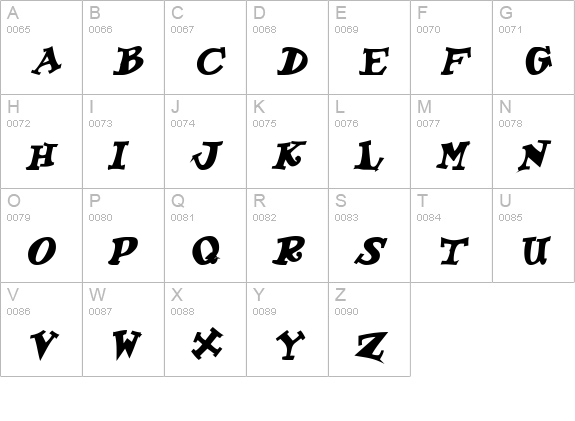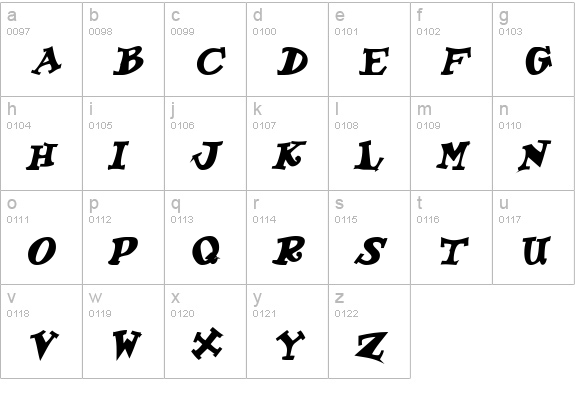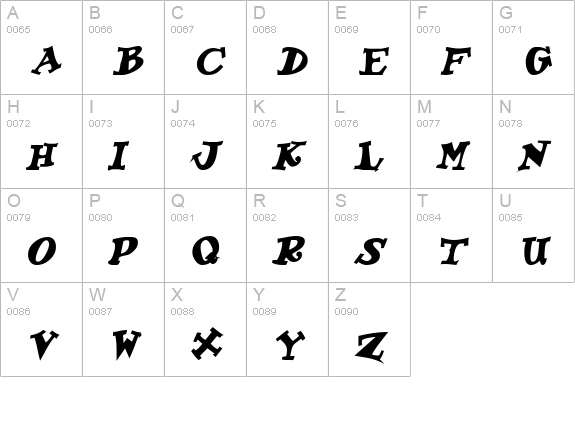
KoolKapsDisplay Bold Italic is a strong, high-contrast, italic variant in the KoolKapsDisplay typeface family \xE2\x80\x94 well suited to headlines, attention-grabbing titles, and strong calls-to-action.
KoolKapsDisplay Bold Italic font is a modern and stylish typeface that exudes confidence and sophistication. Its bold and italic design adds a touch of flair to any project, making it perfect for headings, logos, and branding materials. The strong and unique letterforms of KoolKapsDisplay Bold Italic font make it stand out from the crowd, ensuring that your message gets noticed. And the best part? KoolKapsDisplay Bold Italic font is available for free download at FontsMarket.com! This means you can easily access this high-quality font without breaking the bank. So why wait? Add KoolKapsDisplay Bold Italic font to your font collection today and elevate your designs to the next level.